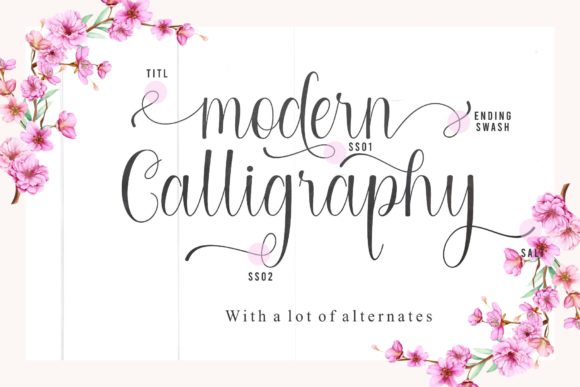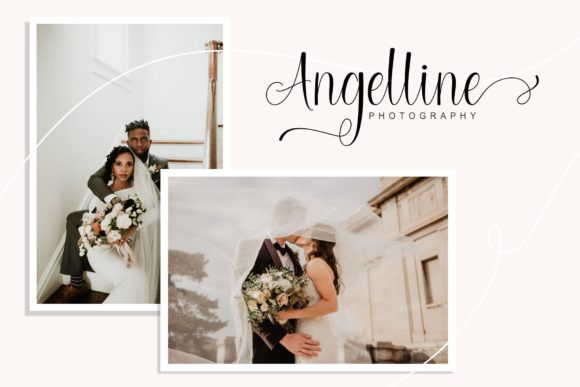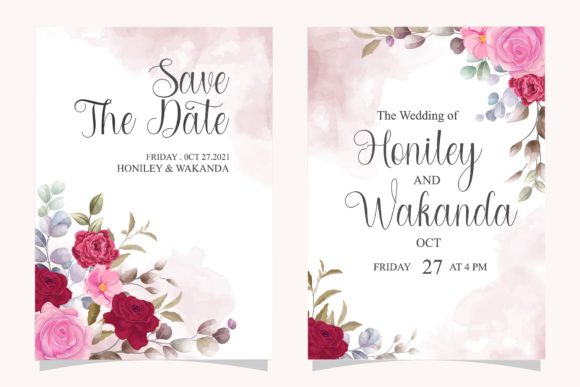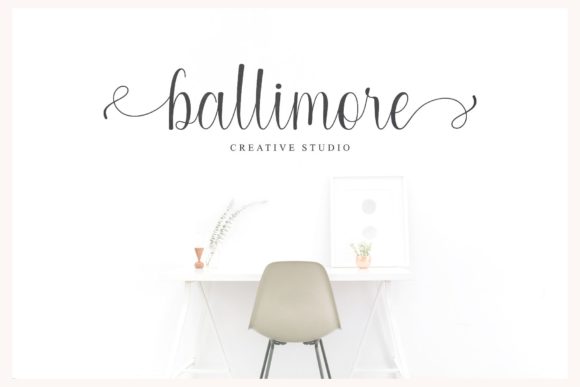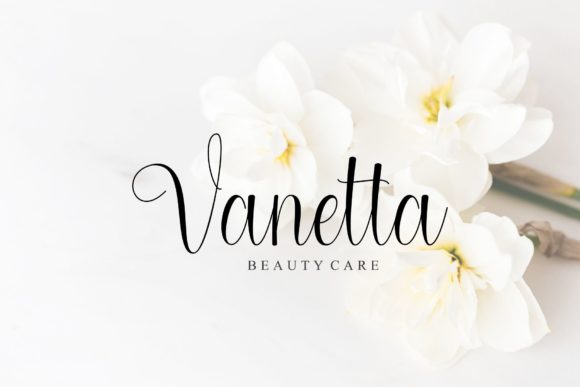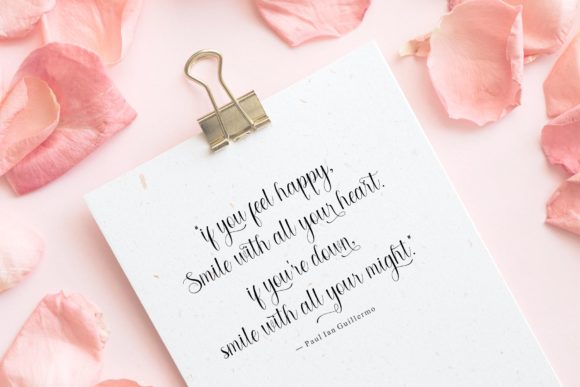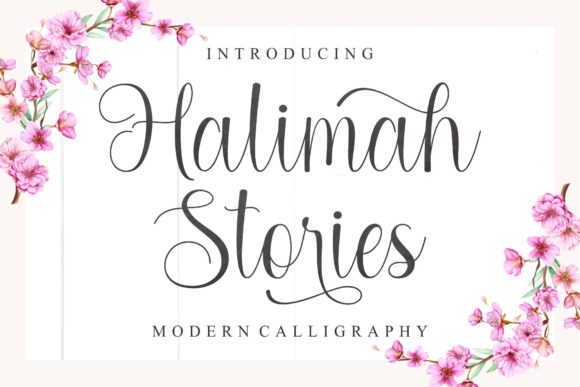
Introducing Halimah Stories Font: Elevate Your Designs with Elegance
In the world of design, fonts play a crucial role in conveying the tone and aesthetic of a project. For designers and crafters seeking a modern and elegant handwritten font, Halimah Stories is an exceptional choice. This beautifully crafted font is designed to add a touch of sophistication and charm to various designs, making it perfect for a wide range of applications.
What Makes Halimah Stories Font Stand Out?
Halimah Stories Font is a modern and elegant handwritten font that has been masterfully designed to give an elegant and beautiful impression to every design. Its unique and flowing script makes it an ideal choice for designers looking to add a personal touch to their work. Whether you’re working on product branding, packaging, stationery, wedding designs, logotype, posters, quotes, or other projects, Halimah Stories Font is sure to impress.
Key Features of Halimah Stories Font
- Modern and Elegant Design: Halimah Stories Font boasts a contemporary and sophisticated design that will elevate your projects and give them a professional look.
- Handwritten Style: The font’s handwritten style adds a personal and unique touch to your designs, making them stand out from the crowd.
- PUA Encoded: Halimah Stories Font is PUA encoded, which means you can easily access all the glyphs and swashes, giving you more creative freedom and flexibility.
- Versatile: This font is perfect for a wide range of applications, including product branding, packaging, stationery, wedding designs, logotype, posters, quotes, and more.
Why Choose Halimah Stories Font?
As a designer or crafter, you’re likely always on the lookout for fonts that can help you create stunning and professional-looking designs. Halimah Stories Font offers several benefits that make it an excellent choice:
- Ease of Use: The font’s PUA encoding makes it easy to access and use the various glyphs and swashes, even for those without extensive design experience.
- High-Quality Design: Halimah Stories Font is designed with high-quality and attention to detail, ensuring that your designs look polished and refined.
- Time-Saving: With Halimah Stories Font, you can quickly and easily create beautiful designs without spending hours searching for the perfect font or trying to create your own.
How to Use Halimah Stories Font in Your Designs
Halimah Stories Font is an incredibly versatile font that can be used in a variety of design applications. Here are a few ideas to get you started:
- Product Branding: Use Halimah Stories Font to create elegant and sophisticated product labels, packaging, and branding materials.
- Wedding Designs: Add a touch of romance and elegance to your wedding designs, including invitations, programs, and decorations.
- Stationery: Create beautiful and professional-looking stationery, including business cards, letterheads, and envelopes.
- Posters and Quotes: Use Halimah Stories Font to create stunning posters and quotes that are sure to grab attention.
Halimah Stories Font is an exceptional choice for designers and crafters seeking a modern and elegant handwritten font. With its unique design, PUA encoding, and versatility, this font is perfect for a wide range of applications. Whether you’re working on product branding, wedding designs, stationery, or posters, Halimah Stories Font is sure to elevate your designs and give them a professional and polished look.